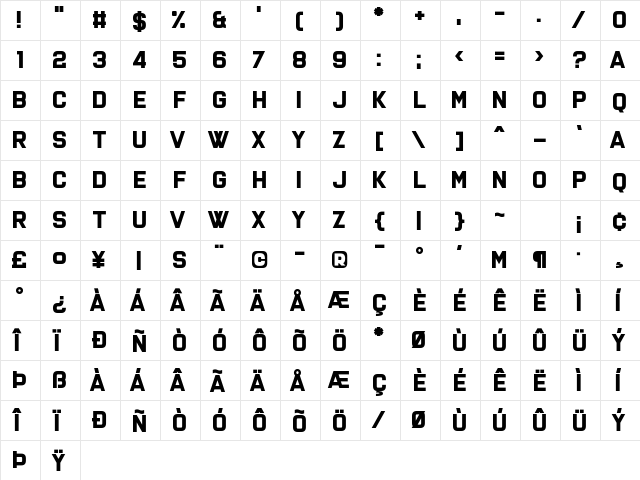
X-Heighting Regular
| Designer | Allison James |
Design Context for X-Heighting Typeface
X-Heighting is a composed and adaptable typeface that performs quietly and consistently across a wide range of design contexts.